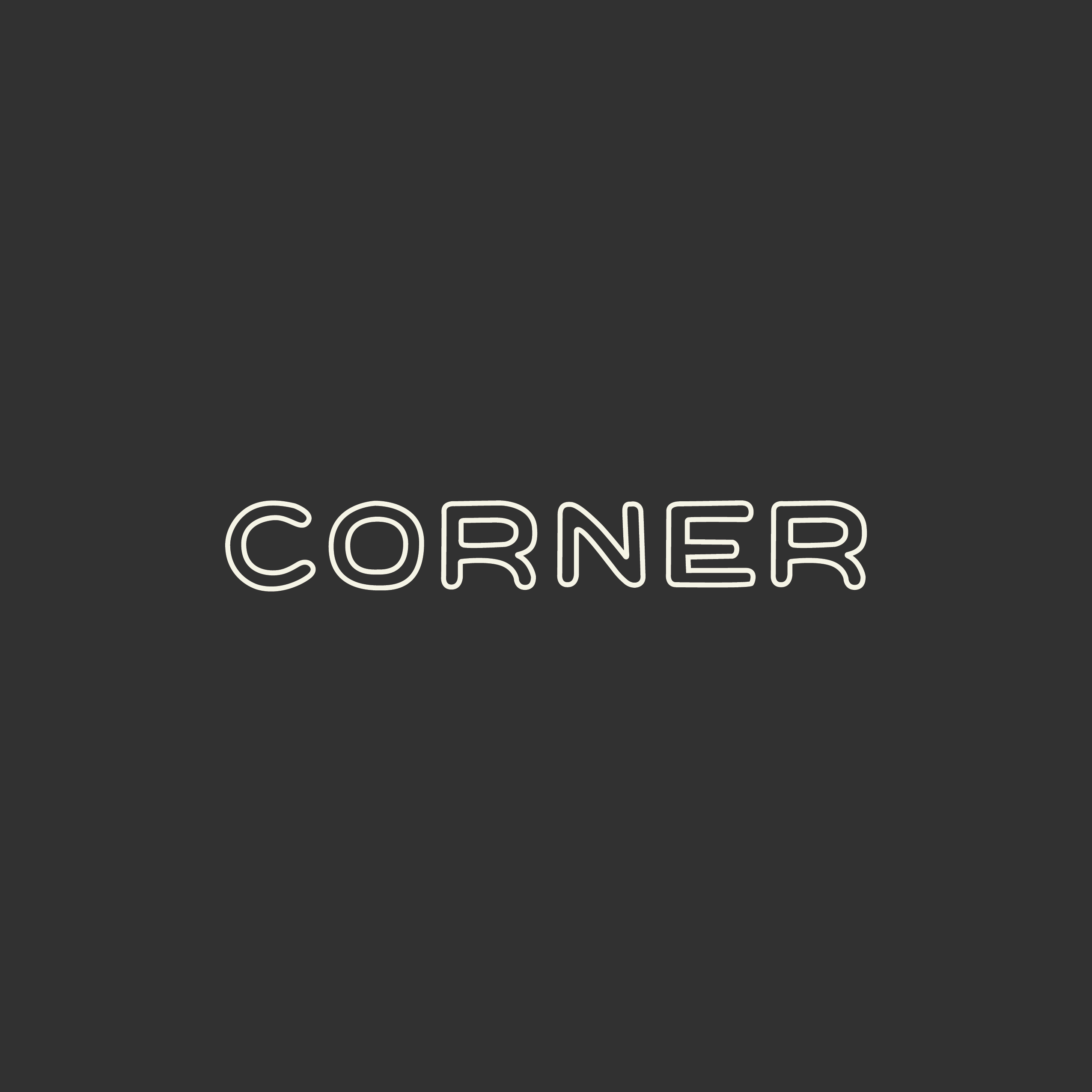
Corner Bagel Typeface
An outlined version of a typeface in the works for a bagel shop. Inspired by letters found in Downtown Anderson, South Carolina.